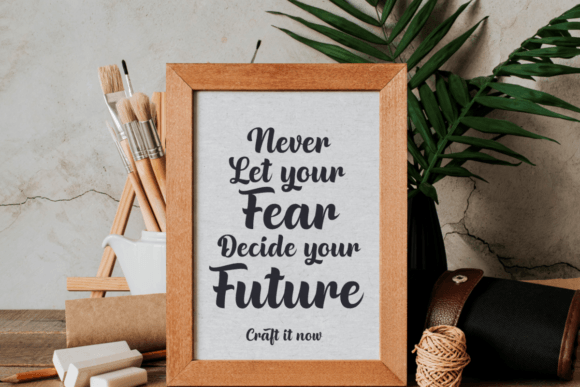
Kodily Font
Kodily is a bold, eye-catching script font. Thick and beautiful, these characters look fantastic on posters, banners, vintage-themed designs, titles, logos, fabric prints, wall art quotes, and many more!